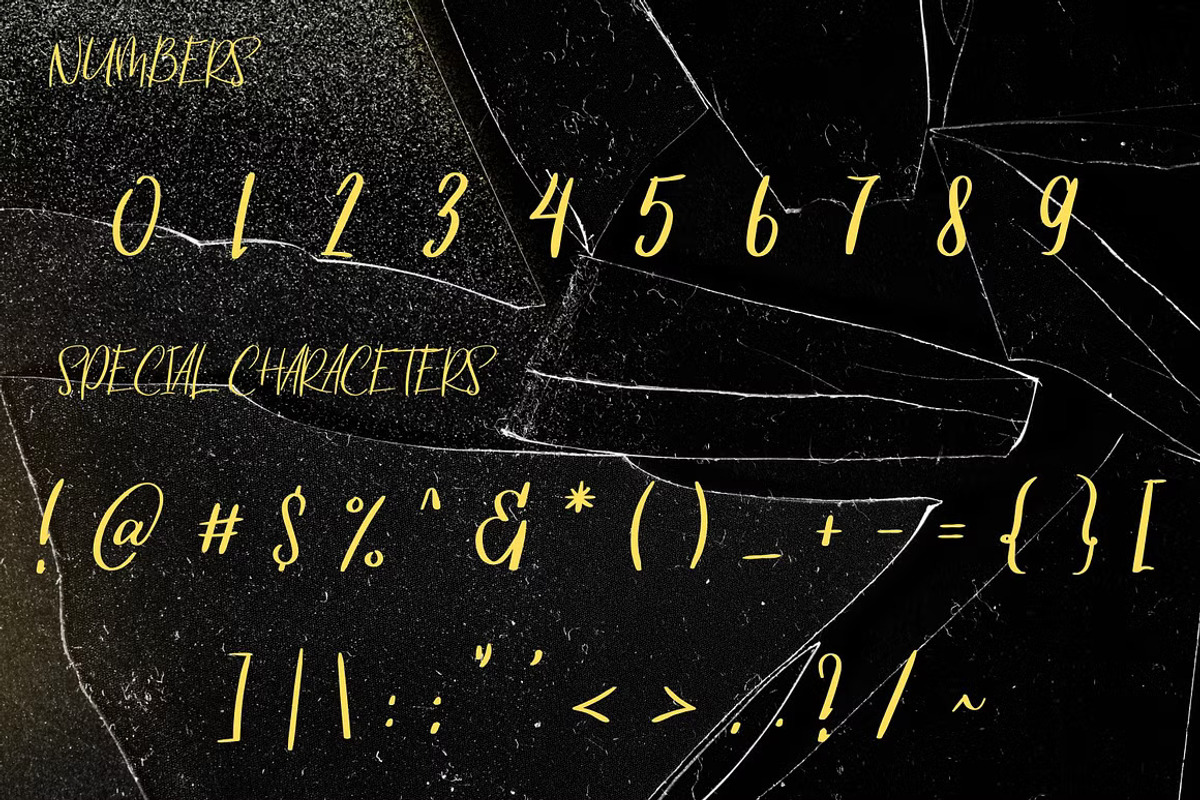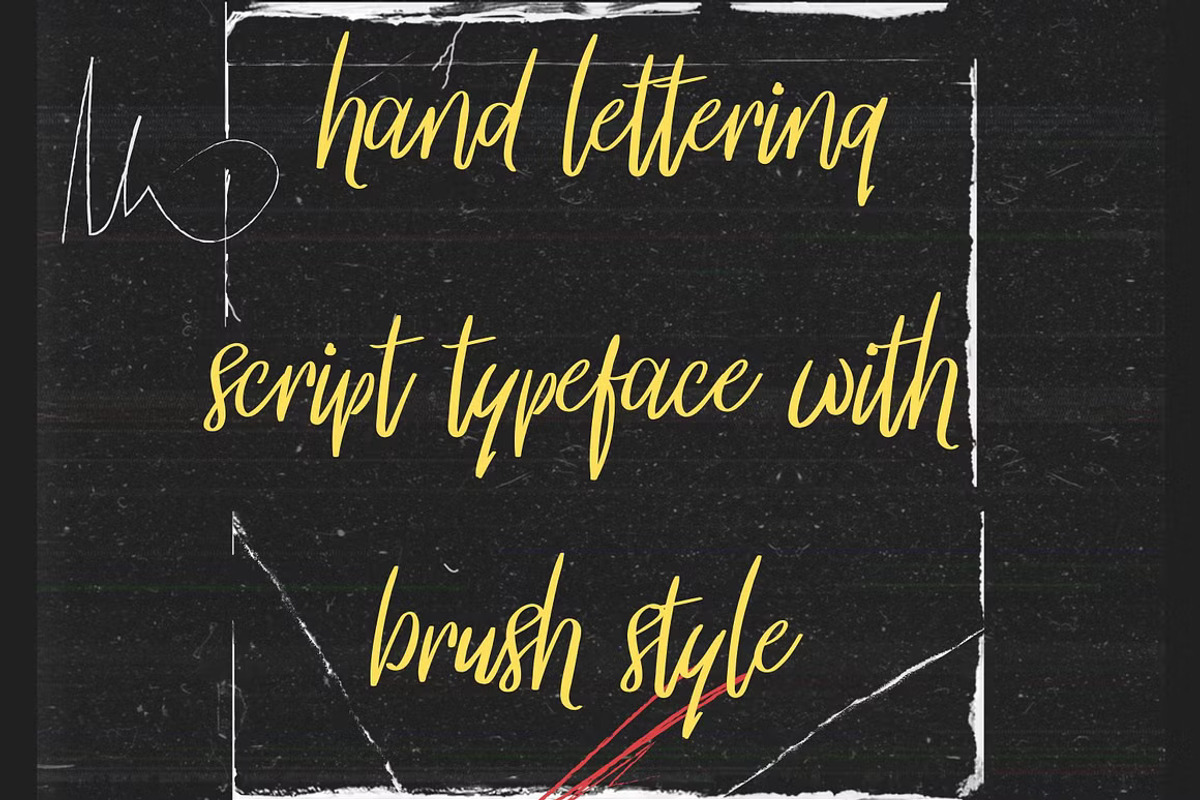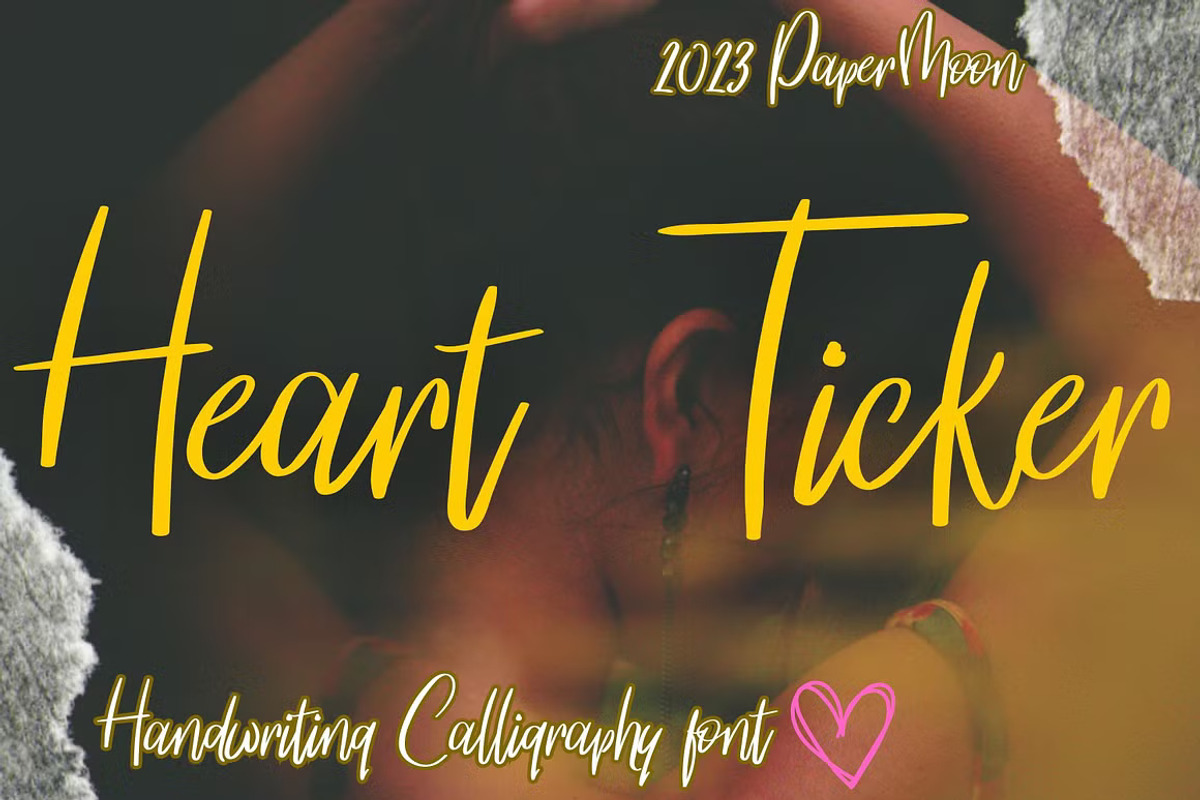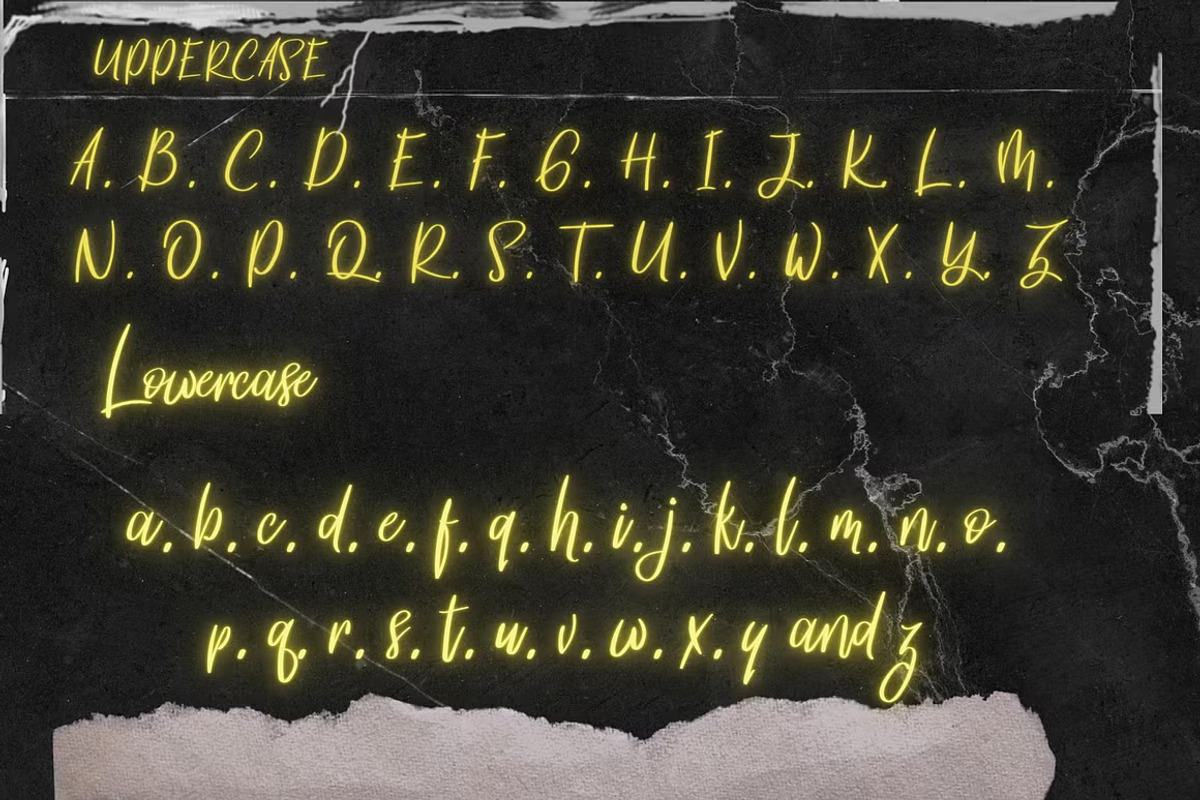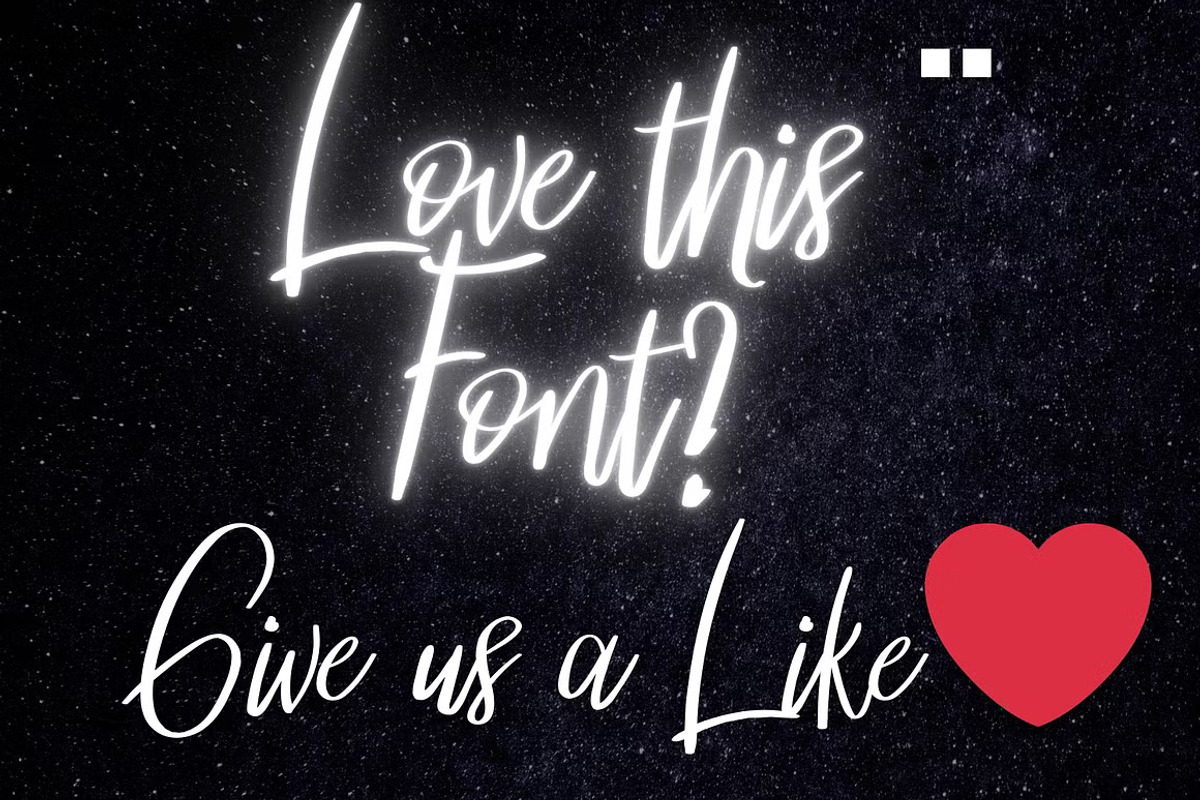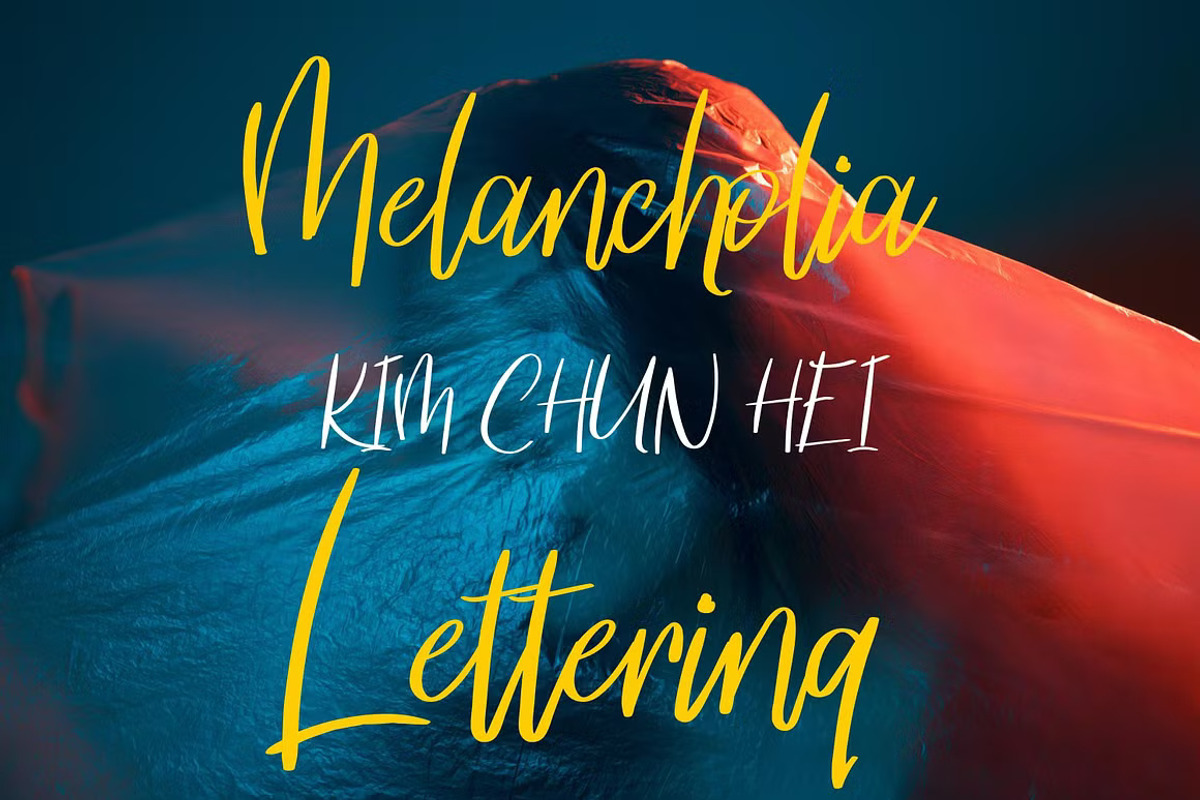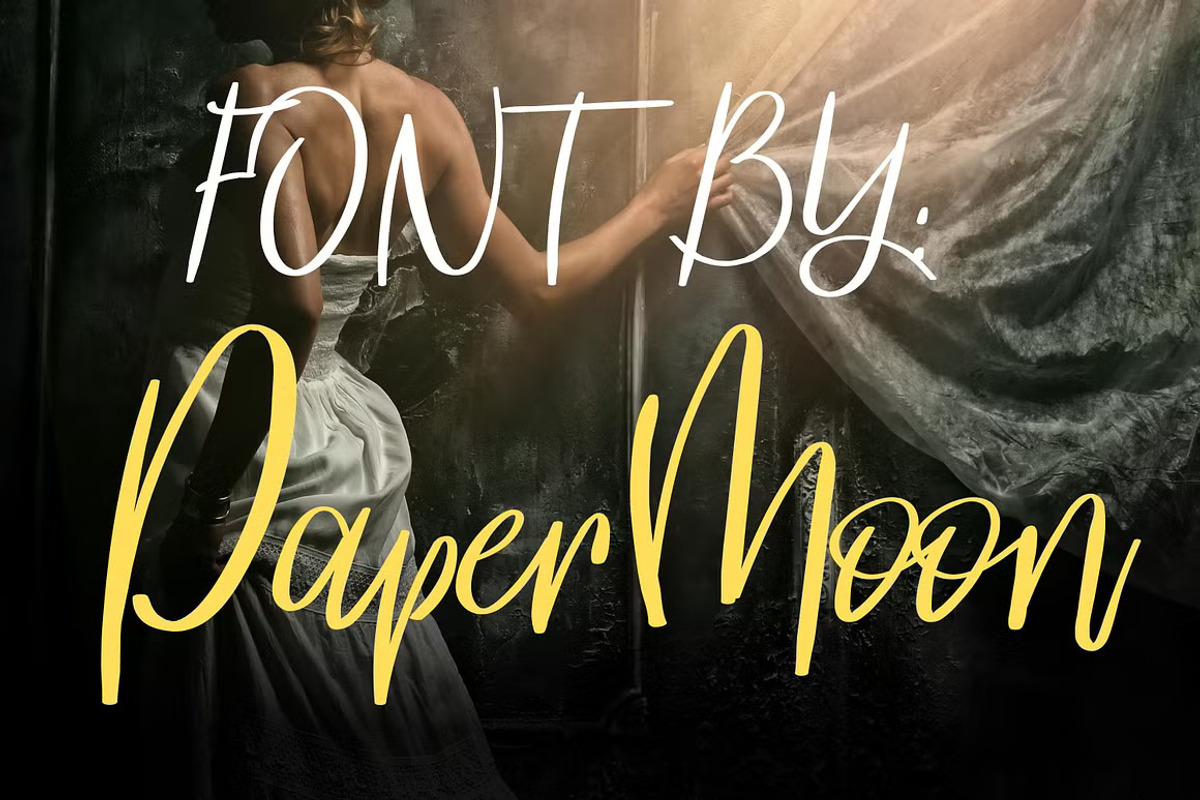
Heart Ticker Calligraphy Font
Introducing Heart Ticker Font: A Cozy Calligraphy Typeface with Timeless Elegance
Hello, Everyone! Embrace the cozy, stay-at-home vibe with our latest release: Heart Ticker Font.
Heart Ticker is a meticulously crafted calligraphy font, designed with a stunning hand-lettered script style and a charming brush effect. This elegant typeface features a beautifully designed character set, with perfect spacing and kerning for a polished look. Combining elements of elegance, vintage charm, sophistication, and classic brush calligraphy, Heart Ticker is the versatile choice for various design projects, including branding, logos, stationery, business cards, signage, flyers, brochures, and more.
Its adaptability makes it a perfect fit for industries such as weddings, events, real estate, architecture, law firms, floristry, gardening, makeup artistry, travel, hotels, and music.